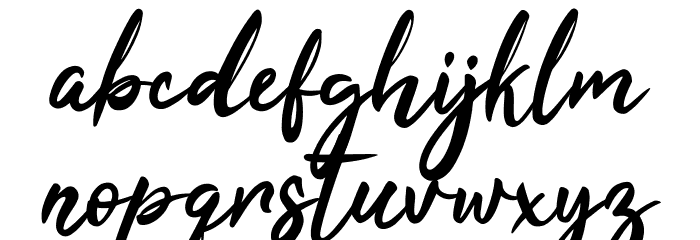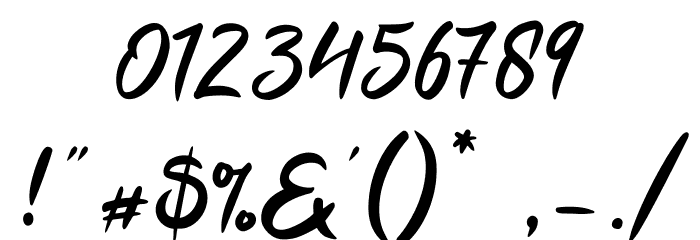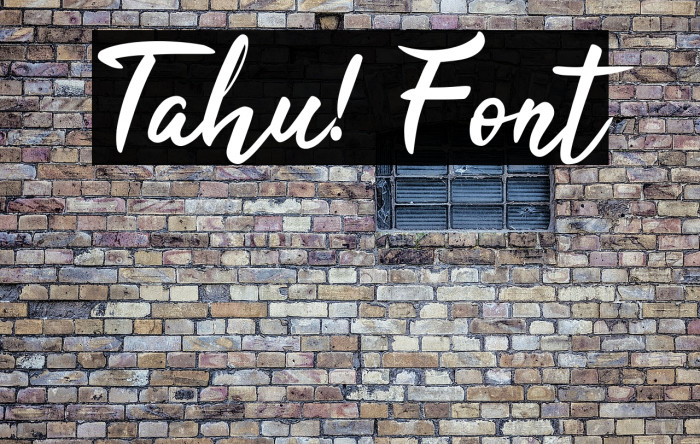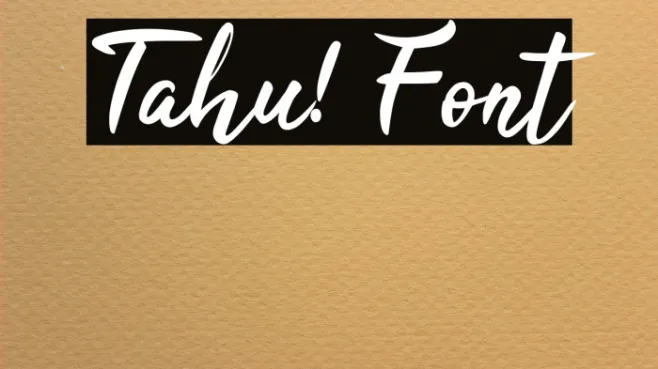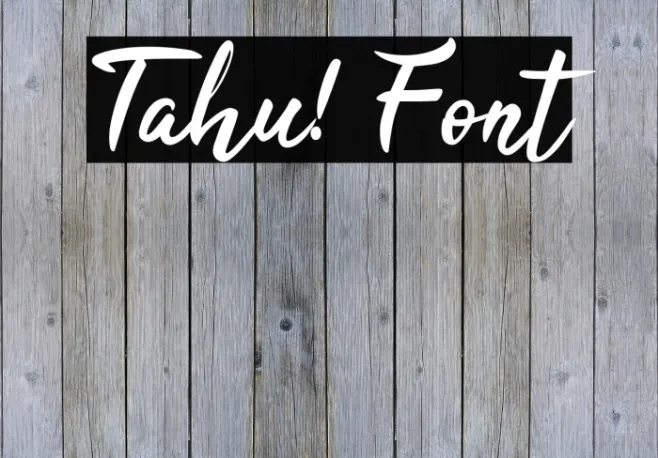
Tahu! Font
This font features a dynamic and fluid script style, characterized by its elegant and flowing letterforms. The strokes are smooth and connected, giving it a handwritten appearance that is both stylish and approachable. The uppercase letters are bold and prominent, while the lowercase letters maintain a consistent flow, enhancing readability. Numbers and special characters are crafted with the same attention to detail, ensuring a cohesive look across all text elements. The overall design exudes a sense of creativity and personal touch, making it suitable for projects that require a personal or artistic flair.
A dynamic and fluid script font with elegant, flowing letterforms.
- Proposed Projects: Ideal for wedding invitations, greeting cards, branding, and social media graphics.
- Use Case: Logos, Headlines, Invitations